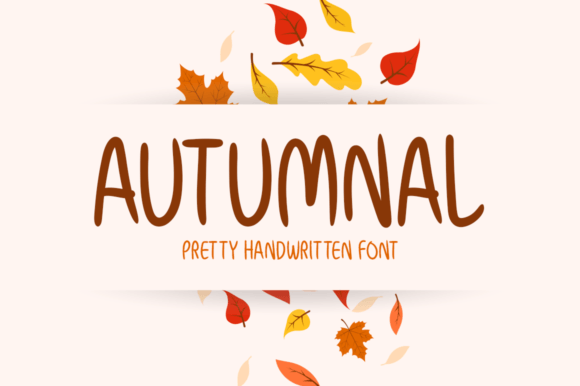
In a world adorned with monotony, Autumnal Font emerges as a beacon of creativity, a breath of fresh air that will transform your designs into captivating masterpieces. This enchanting script font, crafted with meticulous care by Seemly Fonts, possesses an innate ability to elevate your words, imbuing them with an aura of elegance and charm.
Autumnal Font is the epitome of versatility, effortlessly adaptable to a myriad of projects, from heartfelt wedding invitations to eye-catching posters and everything in between. Unleash your imagination and let Autumnal be your guiding light, allowing you to create designs that speak volumes, leaving an indelible mark on the hearts of your audience.
Immerse yourself in the beauty of Autumnal Font's meticulously crafted characters, each stroke a testament to the artistry and passion that went into its creation. Its flowing lines dance across the page, evoking a sense of nostalgia and romance, while its graceful curves add a touch of sophistication that is simply irresistible.
Whether you're a seasoned designer seeking to elevate your work or a creative enthusiast seeking a font that will bring your vision to life, Autumnal Font is your perfect companion. Its versatility knows no bounds, making it the ideal choice for a diverse range of projects, from personal branding and marketing materials to social media posts and web design.
With Autumnal Font, you'll never have to settle for ordinary again. Its timeless beauty and captivating charm will transform your designs into works of art, leaving a lasting impression on anyone who encounters them. Embrace the magic of Autumnal Font today and embark on a creative journey like no other.